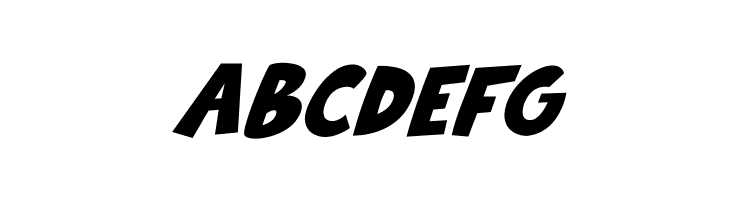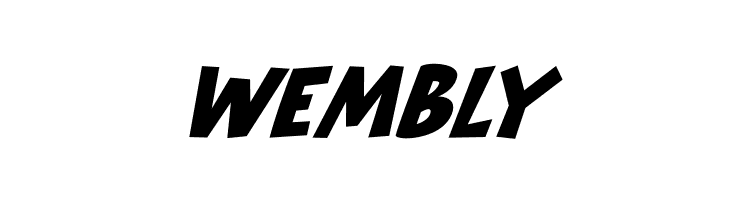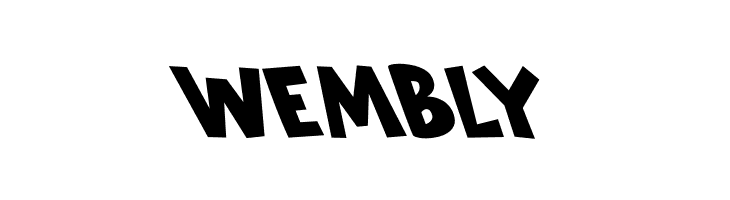
Babydoo Italic Font
A bold, italic font with playful, rounded characters and a dynamic style.
Babydoo Font
A playful, bold font with a whimsical, hand-drawn style.
Babydoo Oblique Font
A bold, playful font with exaggerated, oblique letterforms and a whimsical style.